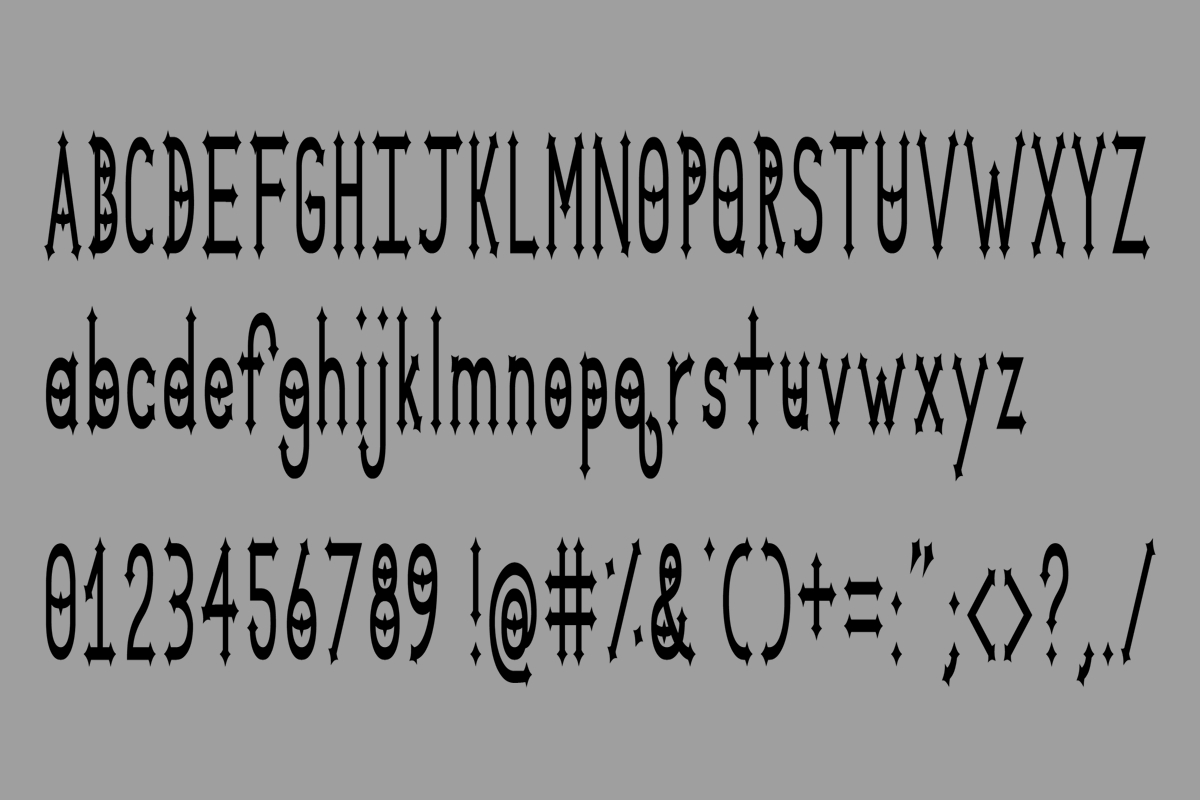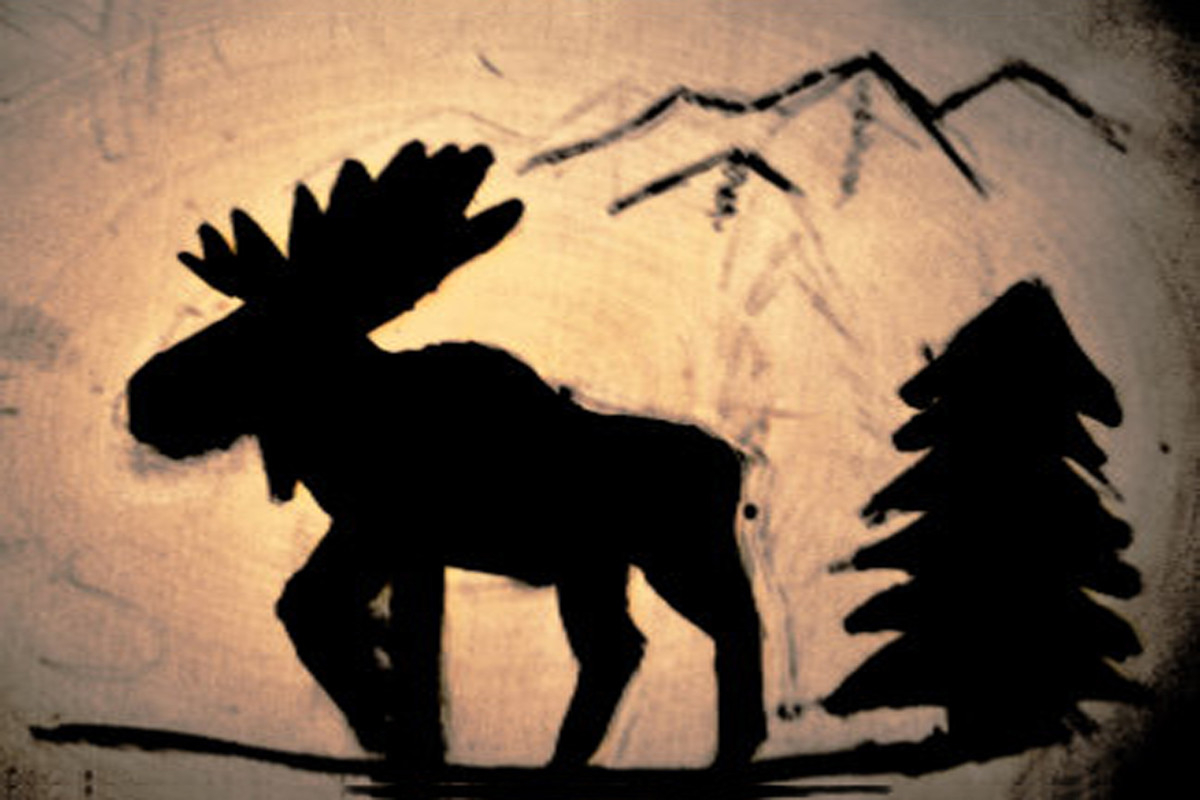
Dymond Speers Font
About Dymond Speers Font
Dymond Speers is a cross between a gothic and medieval font. It will look stunning on poster, flyer or print that require an assertive touch.